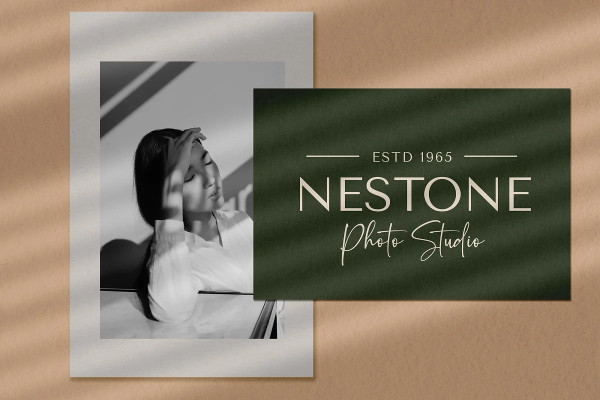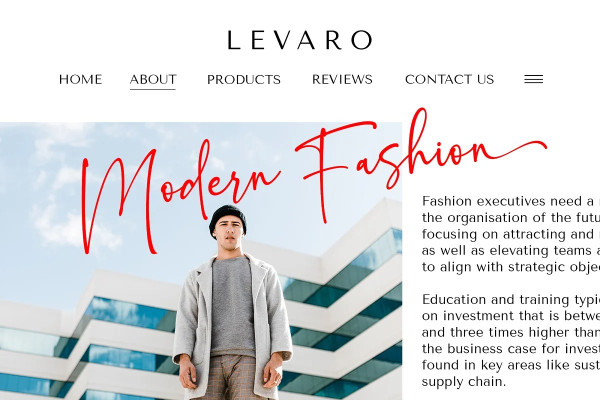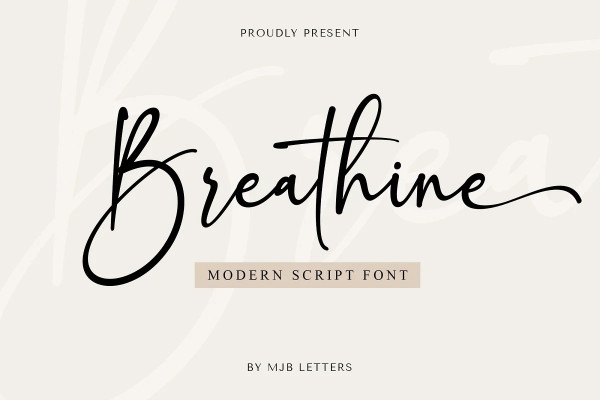
Breathine Script Font
Breathine Script Font, is a modern script font, with stylish looks that will add a chic elegance to design, perfect for websites, wedding stationery, modern logos, personal branding, social media quotes, and more.